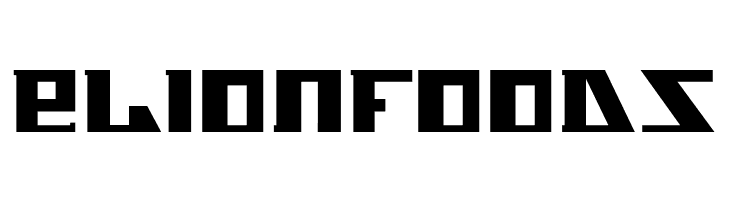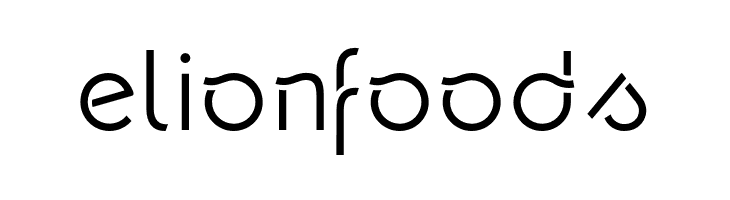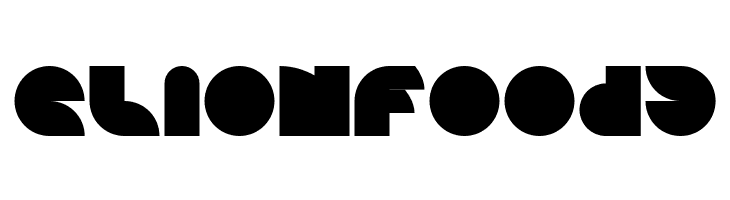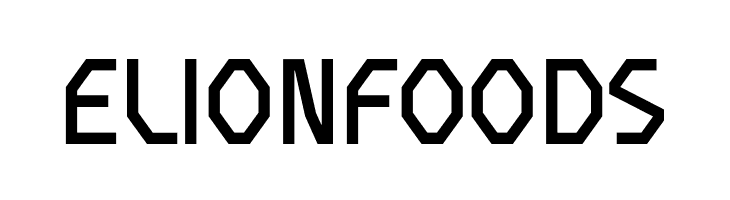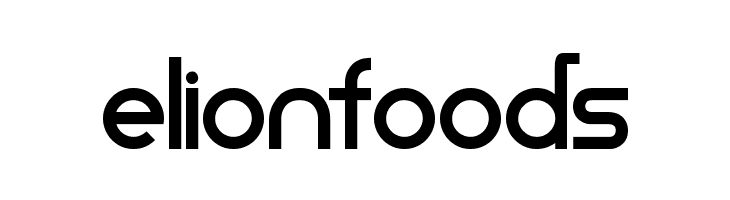
A bold, angular font with a futuristic and edgy design.
A bold, geometric font with a futuristic and abstract design.
A bold, geometric font with a futuristic and mechanical appearance.
An elegant script font with intricate swashes and decorative flourishes.
An elegant script font with intricate flourishes and smooth lines.
An artistic and expressive font with calligraphic influences and high contrast.
A calligraphic font with bold, flowing strokes and intricate detailing.
A calligraphic font with a gothic, medieval style.
A bold serif font with a classic yet modern style, featuring strong vertical lines and subtle curves.
A classic serif font with bold strokes and medium contrast, ideal for traditional and authoritative designs.
A modern serif font with clean lines and balanced proportions.
A bold, condensed font with tall, narrow letterforms and consistent stroke thickness.
A bold, aggressive font with sharp, angular edges, ideal for impactful designs.
A geometric dot-based font with a playful and modern style.
A playful, rounded font with a friendly and approachable style.
A decorative stencil font featuring intricate aquatic-themed designs.
Bird-themed stencil display font with unique illustrated glyphs.
A decorative font with intricate dragon motifs forming each character.
A decorative font inspired by traditional Chinese dragons, featuring intricate and bold designs.
Ornamental floral stencil illustrations with bold, detailed silhouettes.
Decorative floral stencil font with unique plant illustrations for each character.
A whimsical, illustrative font featuring playful scenes with children and toys.
A decorative script font with a ribbon-like, flowing style and high contrast strokes.
A playful, modern font with bold, rounded characters and geometric style.
A decorative font with glyph-like symbols resembling ancient hieroglyphs.
Decorative pictographic font with ancient, glyph-like symbols in bold circles.
A bold, playful font with a cartoon-like, quirky style.
Hand-drawn hieroglyphic-inspired decorative font with sketchy lines.
A bold, geometric font with a strong, edgy style.
An elegant and flowing script font with ornate, cursive letterforms.
A bold, decorative font featuring gender symbols within each character.